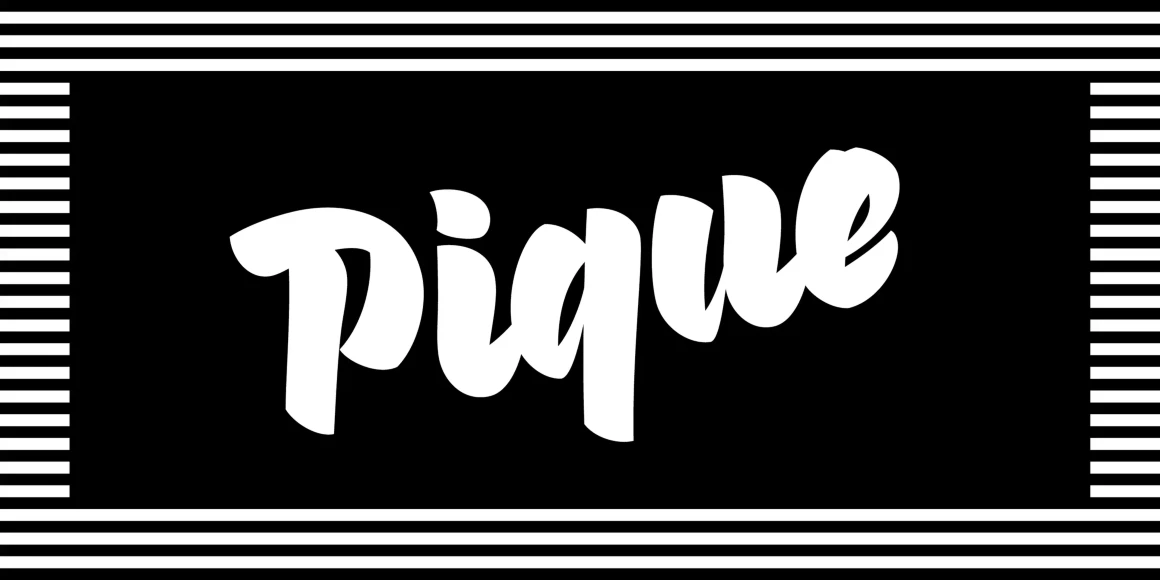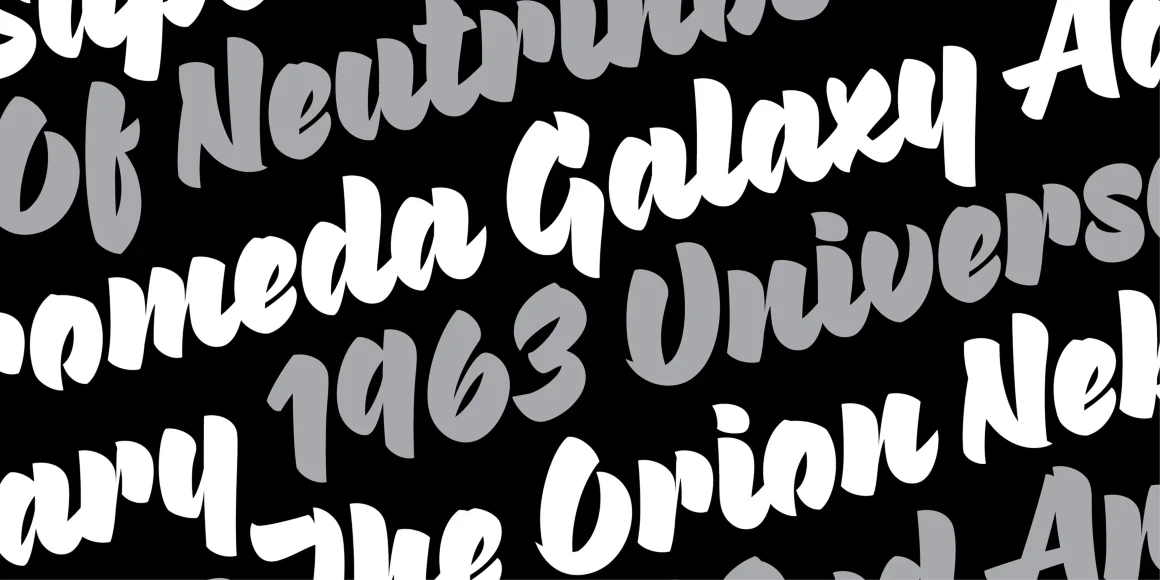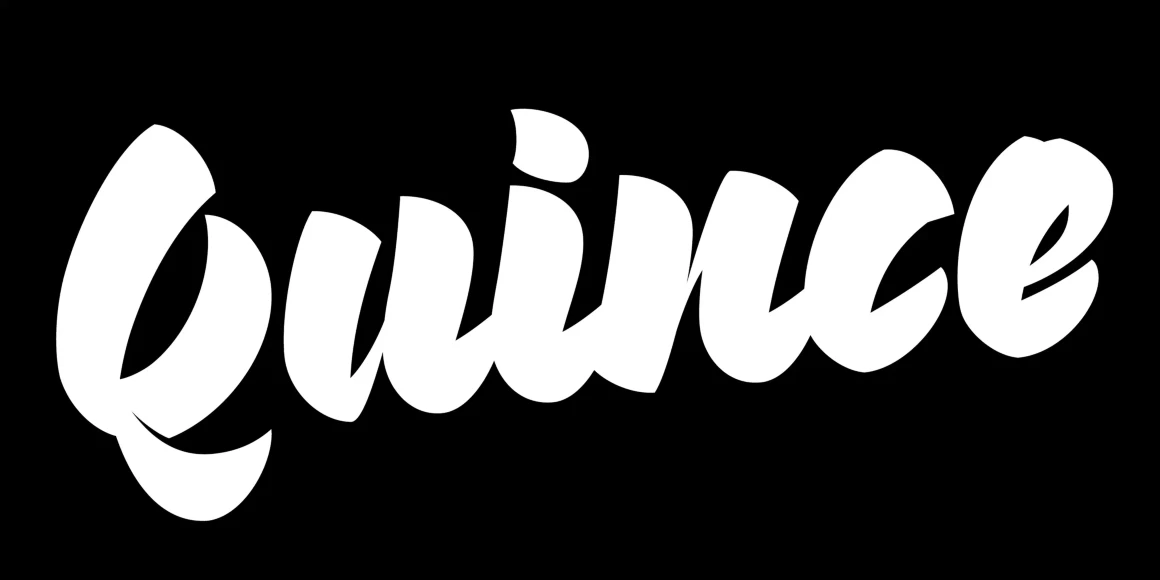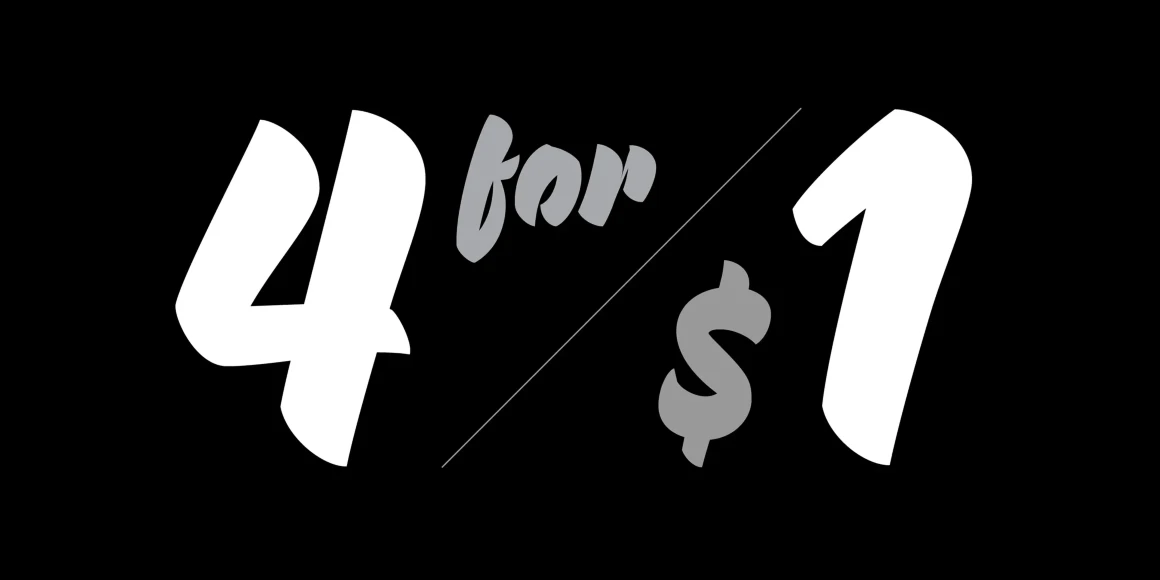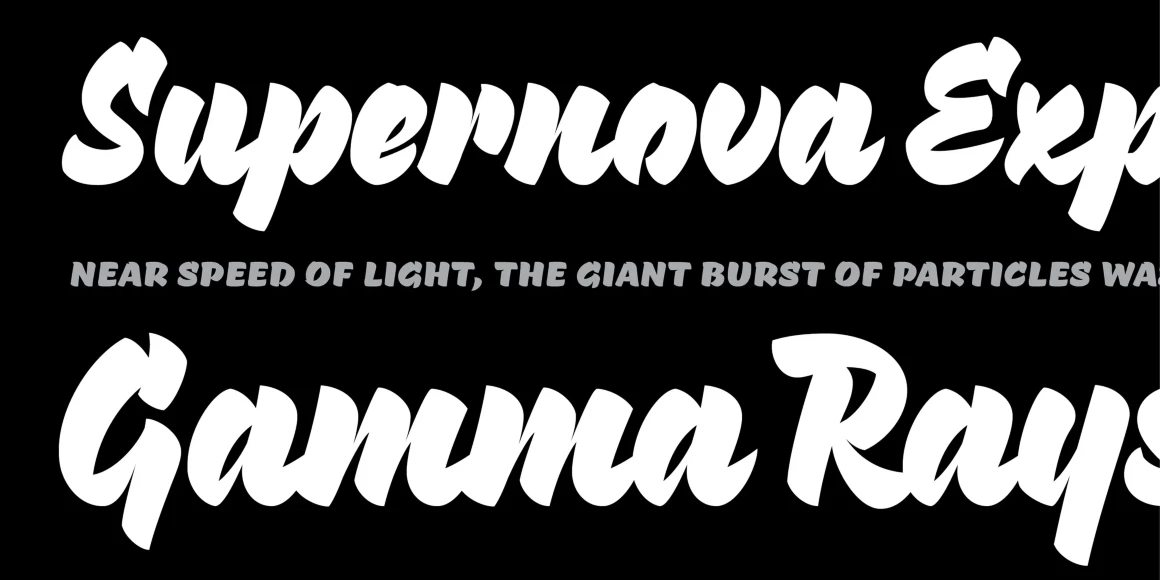
Pique is full of exuberance. A collaboration of paper and screen, familiar brush strokes are met with a contemporary aesthetic and result in a crisp, energetic typeface. Pique has small caps that are designed for all-caps settings, so while they integrate well with the whole typeface, they are a distinct design that provides a typographic contrast.
Designed by Nicole Dotin